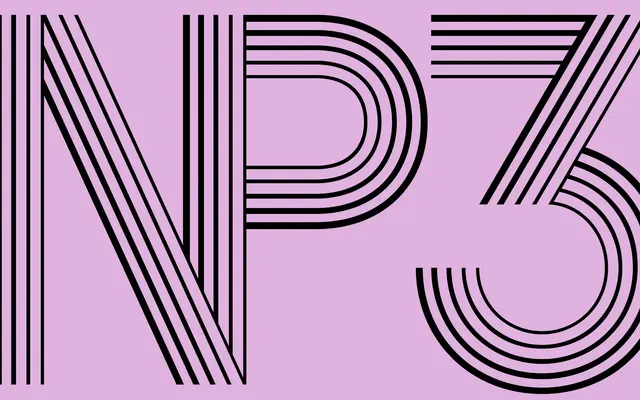
A five-line humanist display face drawing on Rudolf Koch's Prisma (1931) and Akihiko Seki's Aki Lines (1970/72), built for headlines and large sizes.
Prismax continues a lineage of optical and multi-line alphabets that peaked in popularity during the 1970s, tracing its roots directly to Koch's Prisma. The graded parallel lines across each letterform give the face a layered, dimensional quality, and a set of interlocking ligatures adds further typographic character for letter pairs such as OC, HD and NNE. Available in a single Regular weight, it is a specialist tool for headline-scale display work rather than a general-purpose family.
A five-line inline display typeface designed exclusively for large sizes and headlines, following the tradition of optical and multi-line alphabets rooted in Koch's Prisma (1931). Its decorative striped construction places it firmly in the display category.